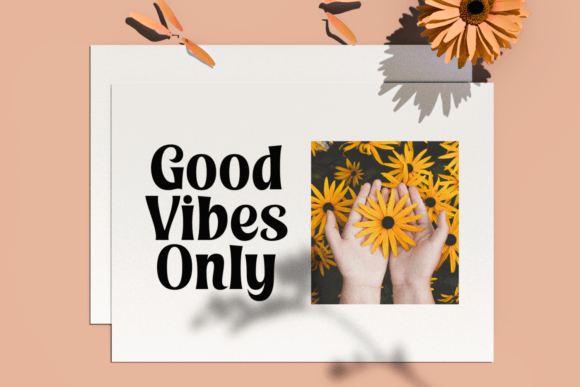
Goody Shine is a beautiful display font with an alluring look. The thick and softly curved characters give this typeface a unique charm. You can use it for headlines, posters, covers, crafting projects, and many more!